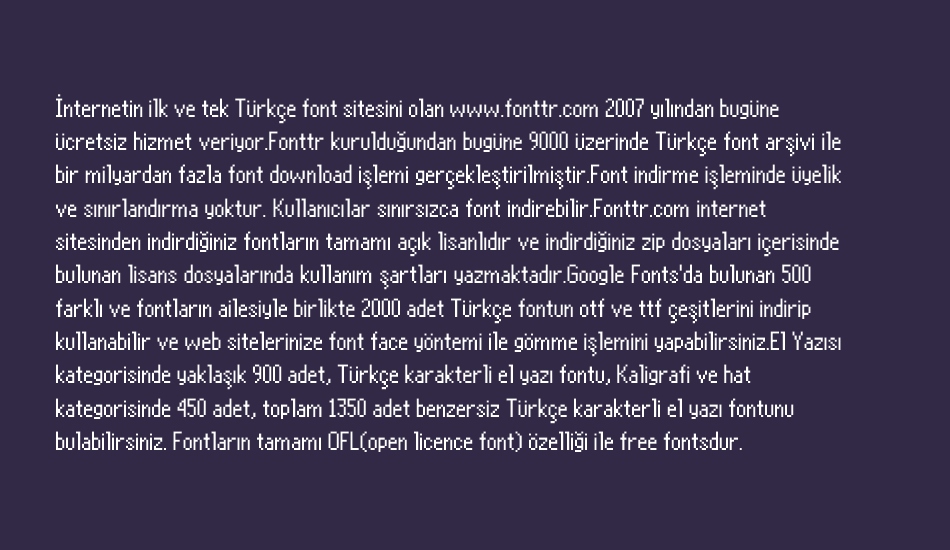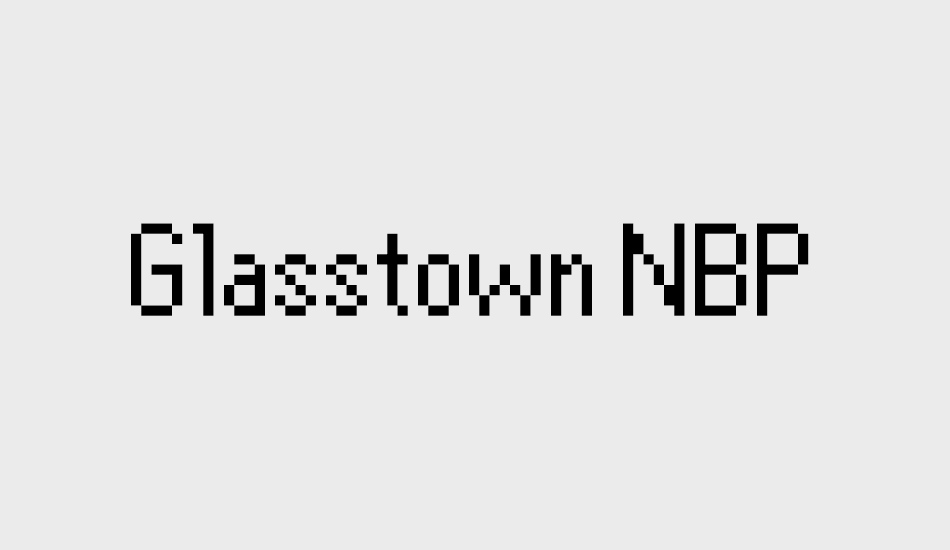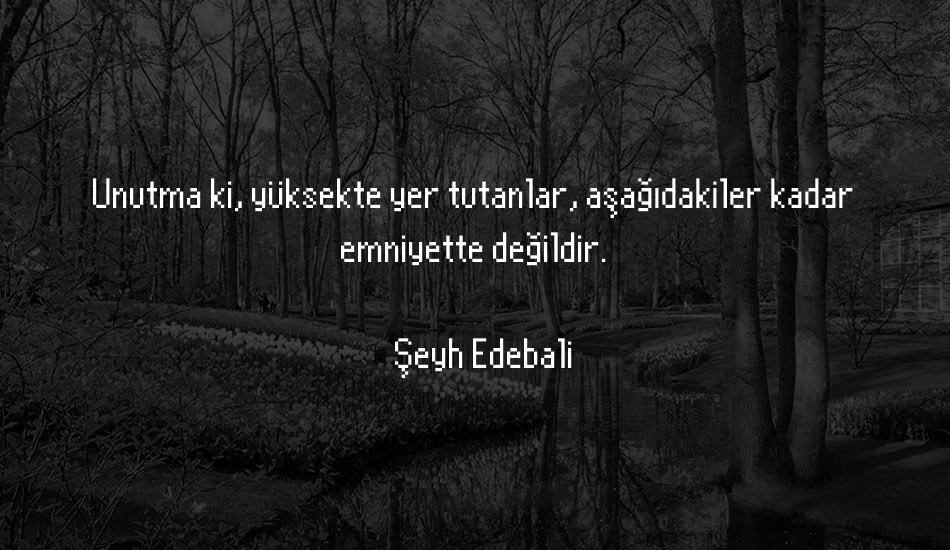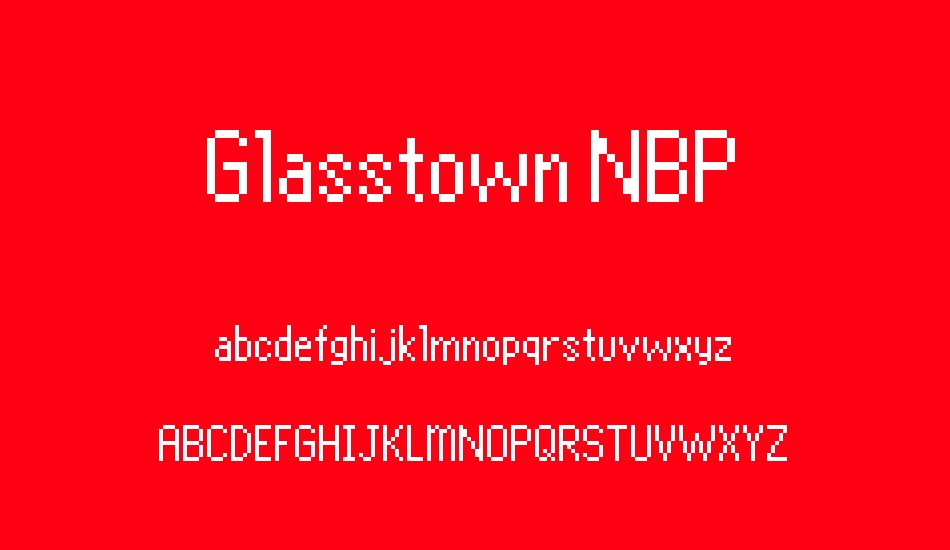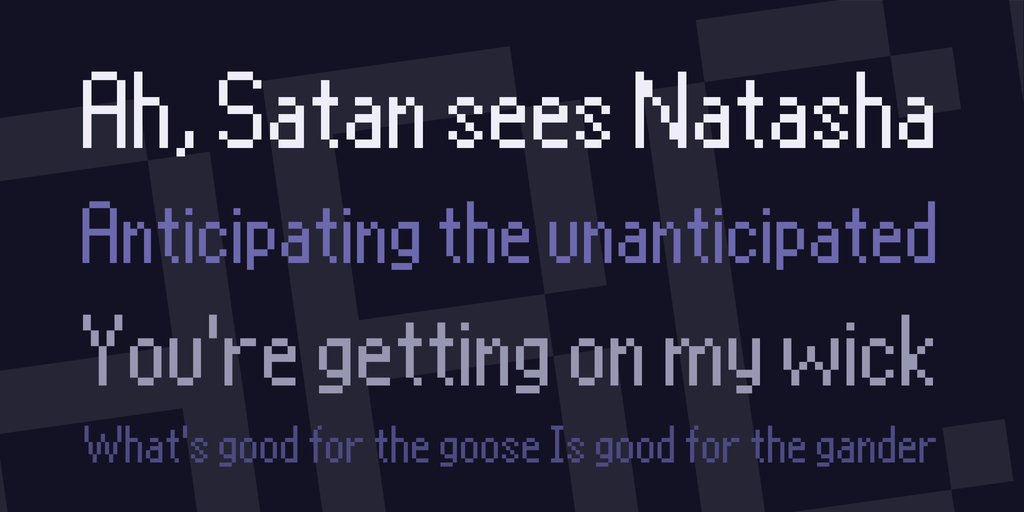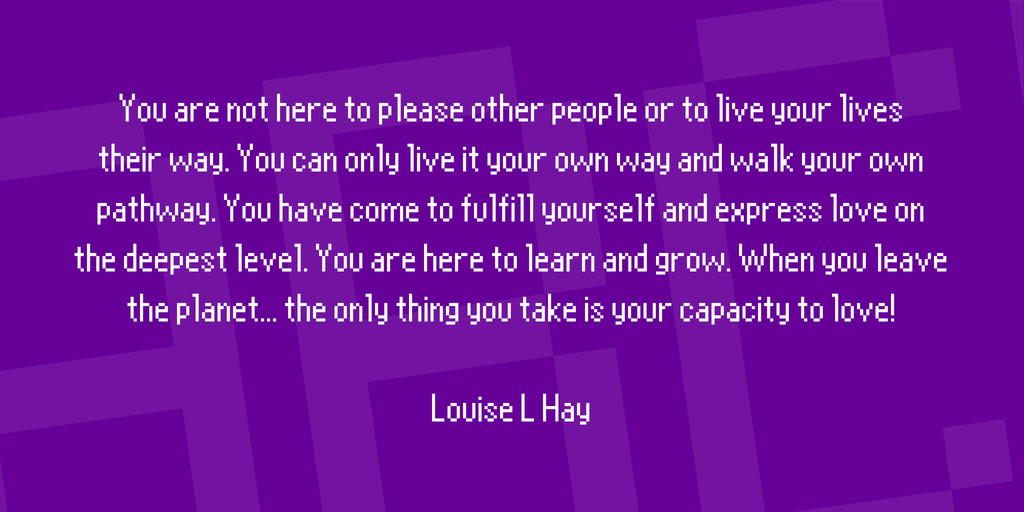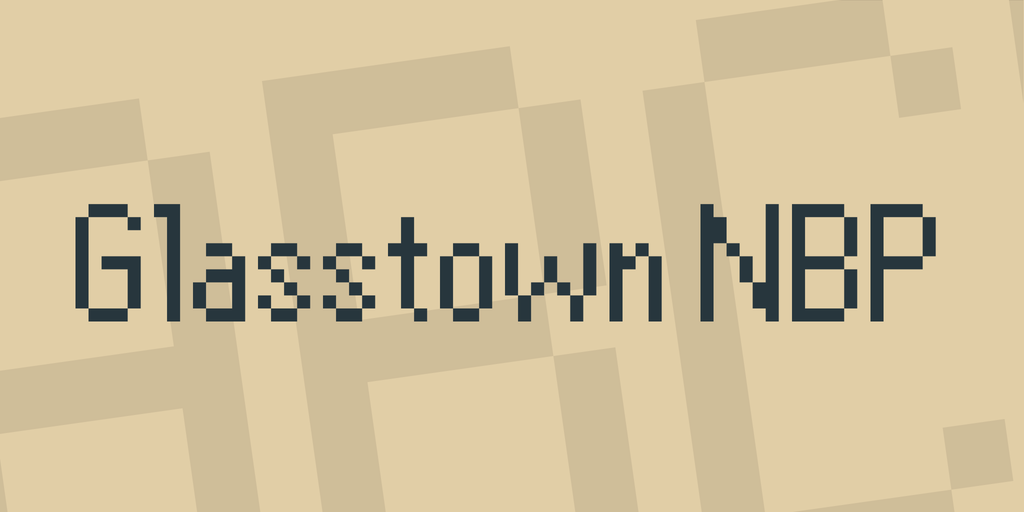
Glasstown NBP Font font
GLASSTOWN NBP
made by Nate Halley
using FontStruct
Version 1.3
DESCRIPTION
Based on the bitmap font from The Urbz: Sims in the City for GBA/DS. This is most likely the most unnecessarily jampacked pixel font you'll ever download in your entire life.
CHANGES FROM VERSION 1.2
-Added about a 100 new characters! Now contains Hiragana and Bopomofo.
CHARACTERS INCLUDED
-Basic Latin (QWERTY/AZERTY keyboard)
-Extended Latin (accented characters & symbols)
-Cyrillic
-Greek/Coptic
-Bopomofo
-Hiragana
-Katakana